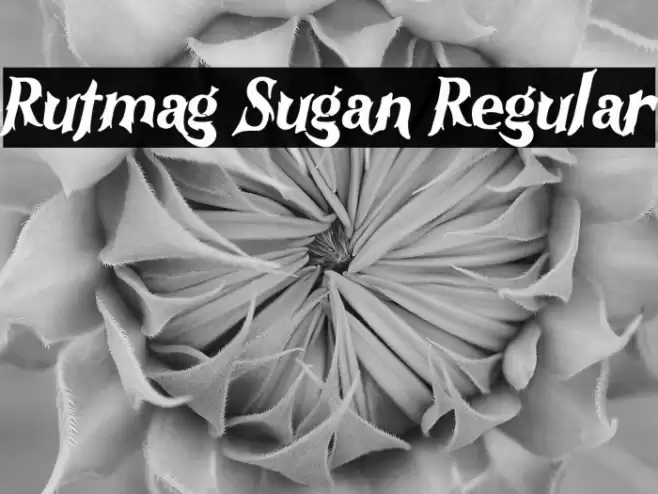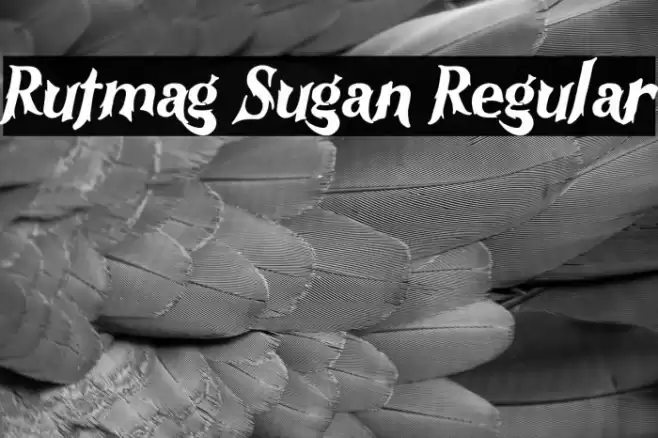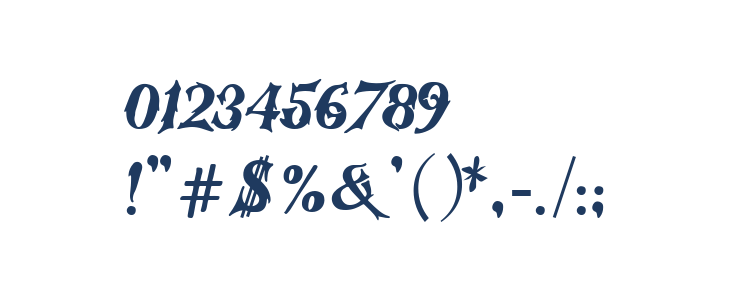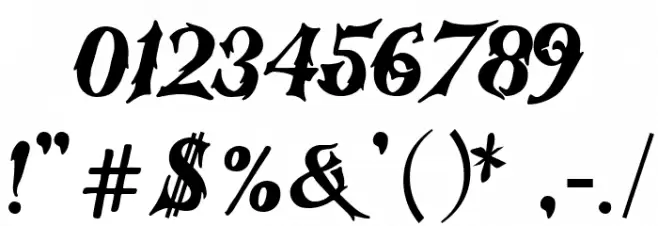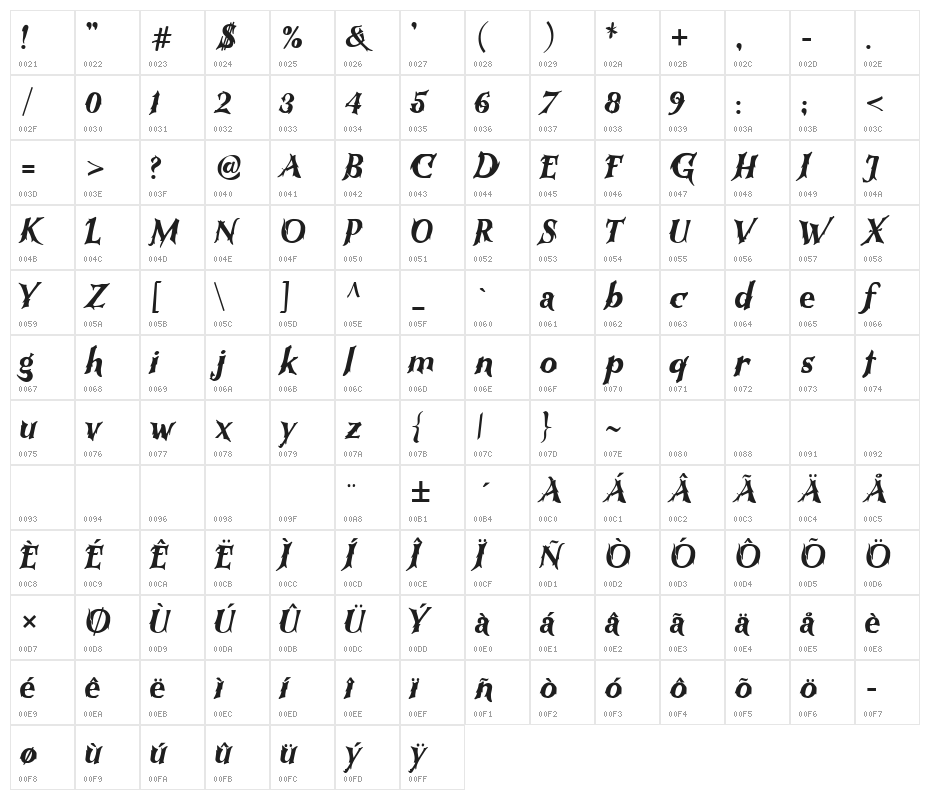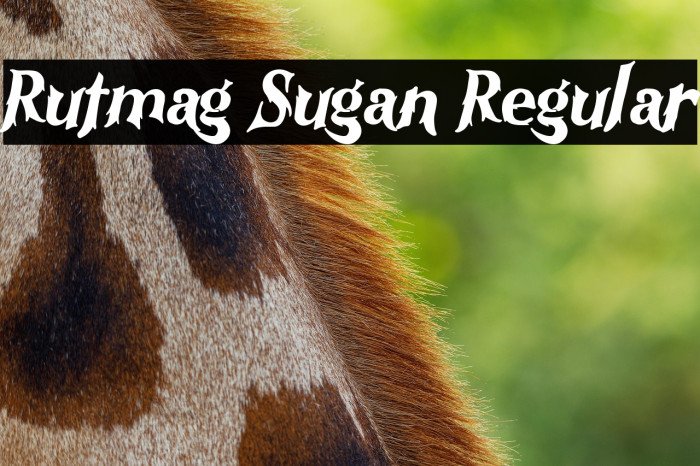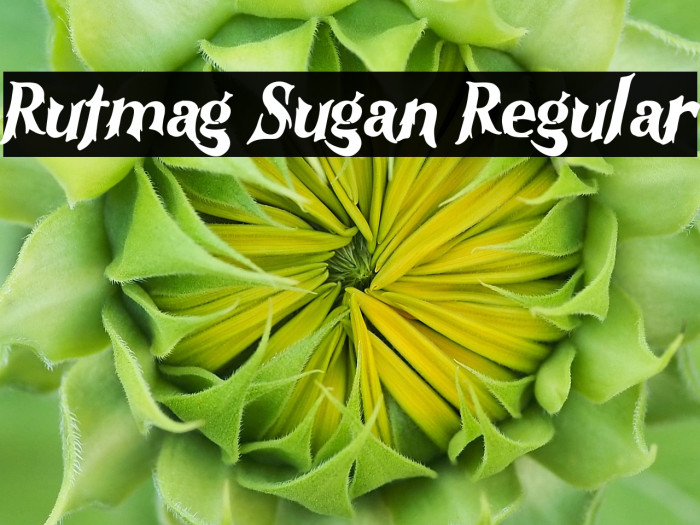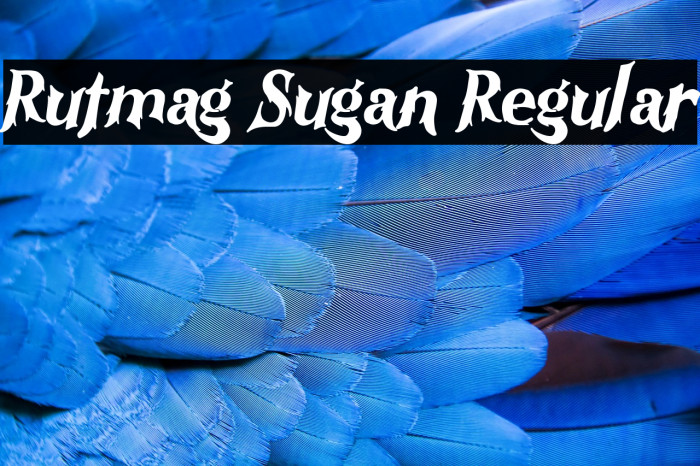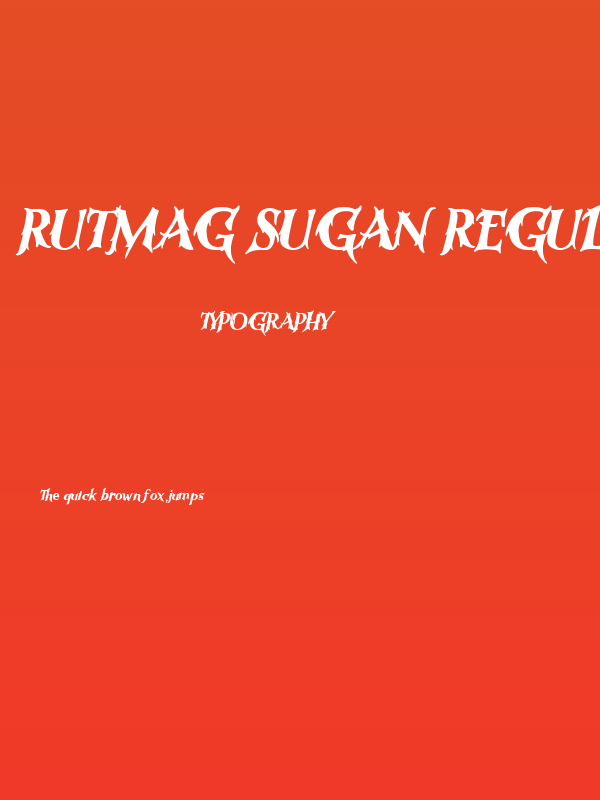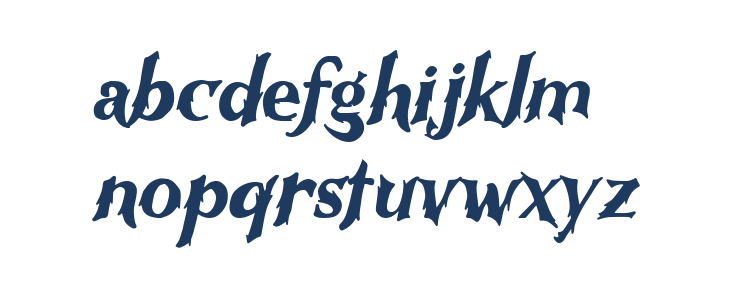
Rutmag Sugan Regular Font
Rutmag Sugan Regular Description
This font features a bold and dynamic style with sharp, angular edges and a slightly aggressive flair. The uppercase letters are particularly striking, with exaggerated serifs and a sense of movement that suggests speed and energy. The lowercase letters maintain this dynamic quality, though they are slightly more restrained. Numbers and special characters are consistent with the overall style, offering a cohesive look. The font's unique design makes it stand out, ideal for projects that require a strong visual impact.
A bold, dynamic font with sharp, angular edges and a striking appearance from Regular fonts.
- Proposed Projects: Ideal for branding, posters, album covers, and any project needing a bold, energetic typeface.
- Overall Style: Modern, Decorative